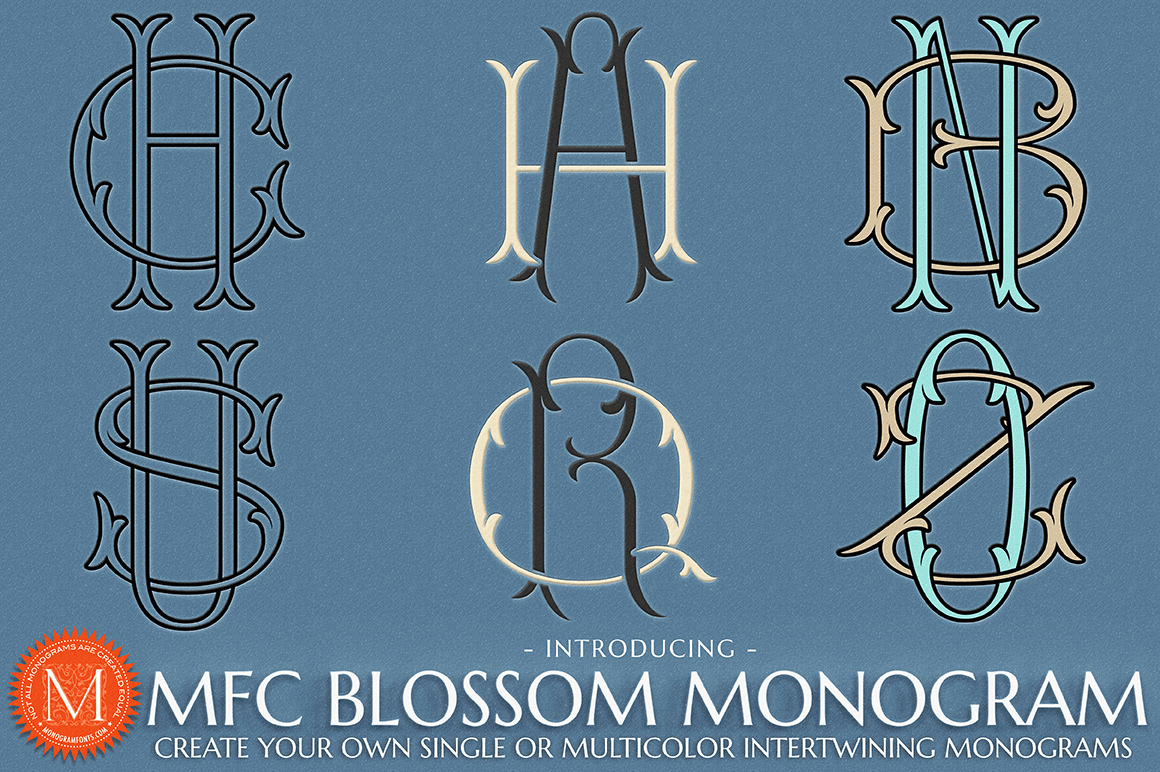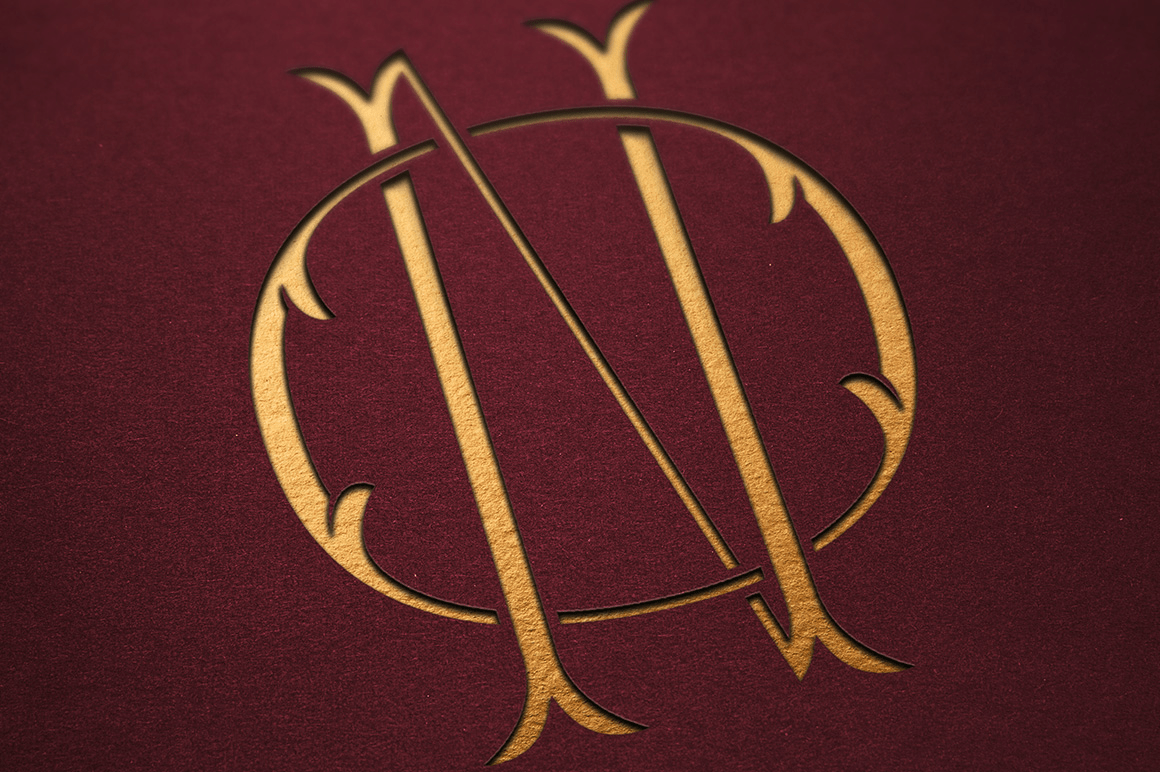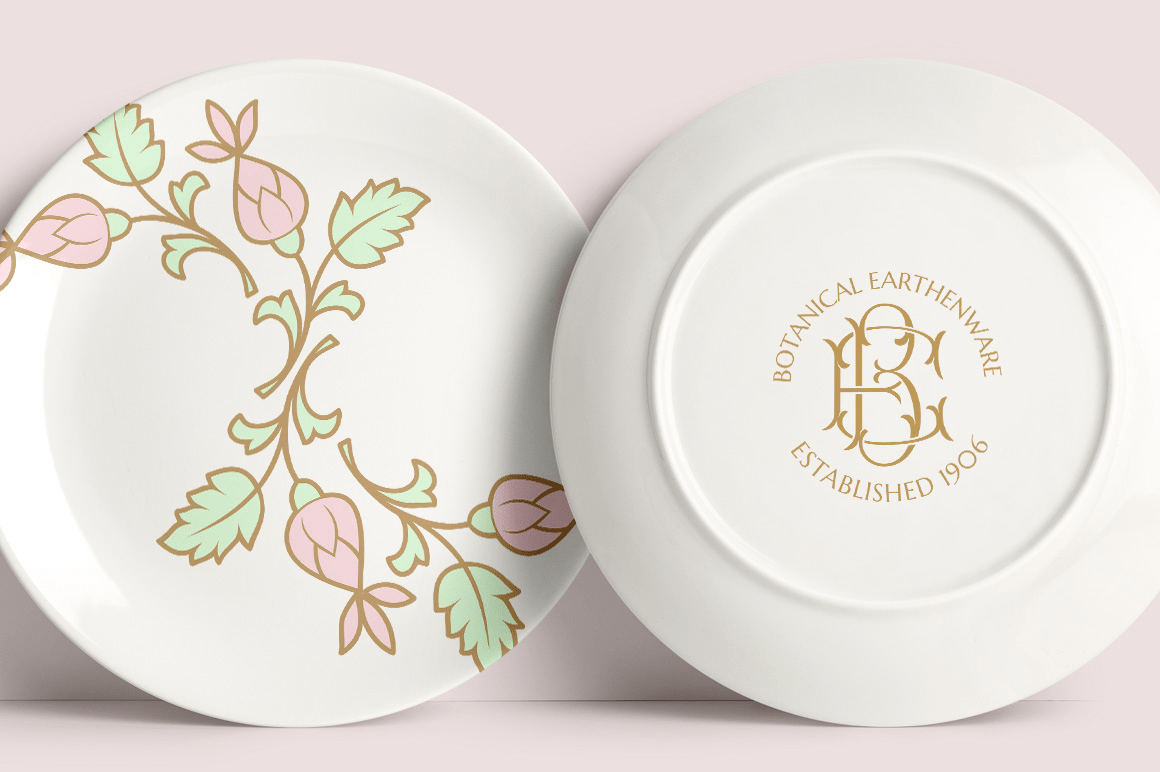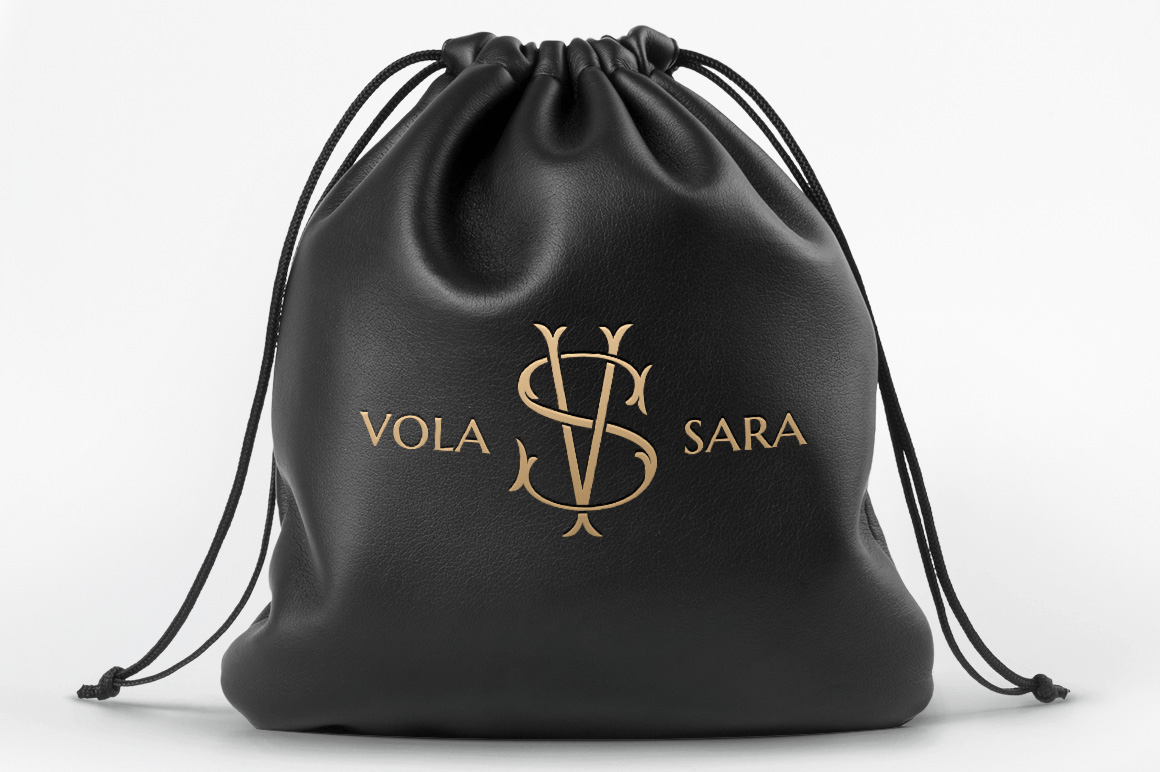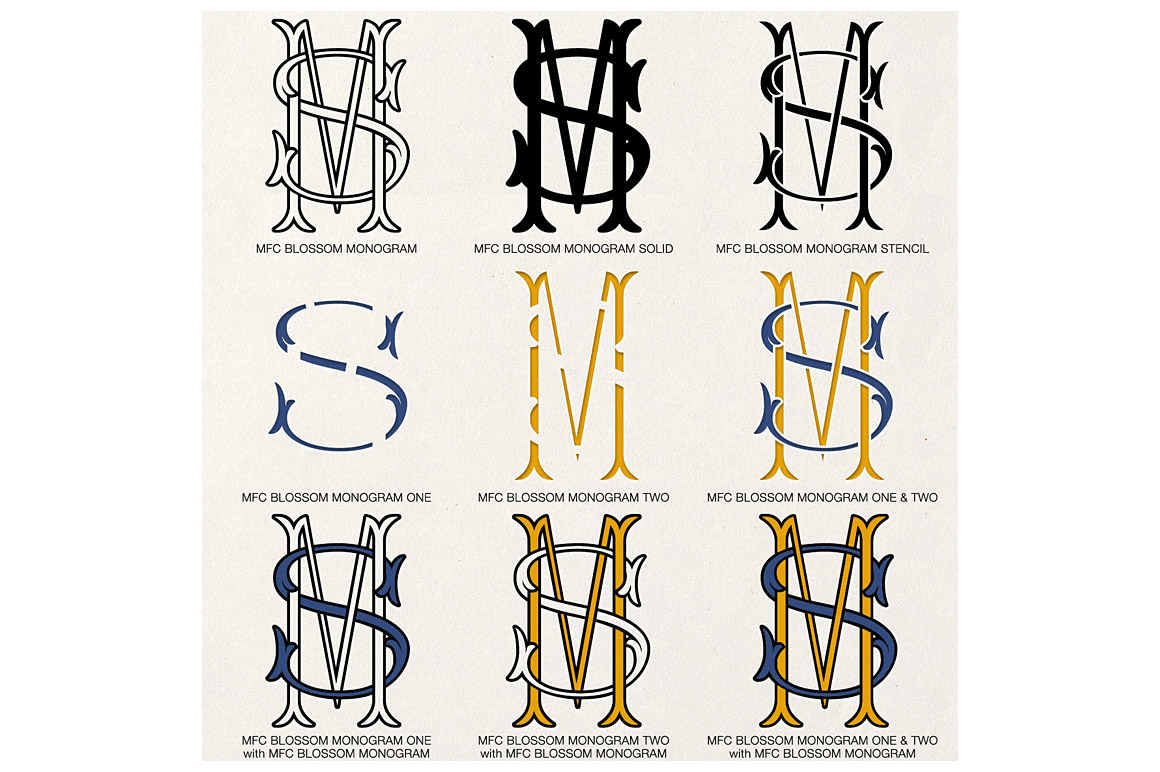
MFC Blossom Monograms
Font Family by Monogram Fonts Co
The inspiration source for MFC Blossom Monogram is our MFC Budding Monogram, although now setup in an intertwining fashion.
MFC Blossom Monogram can create one, two, or three (separated) letter monograms as well as a unique two letter intertwined monogram style - made by simply typing a lowercase immediately followed by a Capital (using OpenType Ligatures). Classic decorative letterforms combine to make elegant monograms, and you can also choose to type in all capitals or all lowercase for simple title and headlines as well. (Note that due to the manner in which combination monograms are formed, some letters like the "I" will change to script-like forms to avoid being hidden in overlaps).
MFC Blossom Monogram is the original Outline/Shadowed style. MFC Blossom Monogram Solid is a version with the original outline filled in. MFC Blossom Monogram One is the Capital letterforms only in both standard and ligature glyphs. MFC Blossom Monogram Two is the Lowercase letterforms only in both standard and ligature glyphs. MFC Blossom Monogram Stencil contains the inner fill of the original Outline/Shadowed style, and while the standard Capitals & Lowercase do not appear as stencil in style, the ligatures are.
You'll also find the same floral decorative elements from MFC Budding Monogram setup in each of the chromatic styles for MFC Blossom Monogram, adding more personalization options.